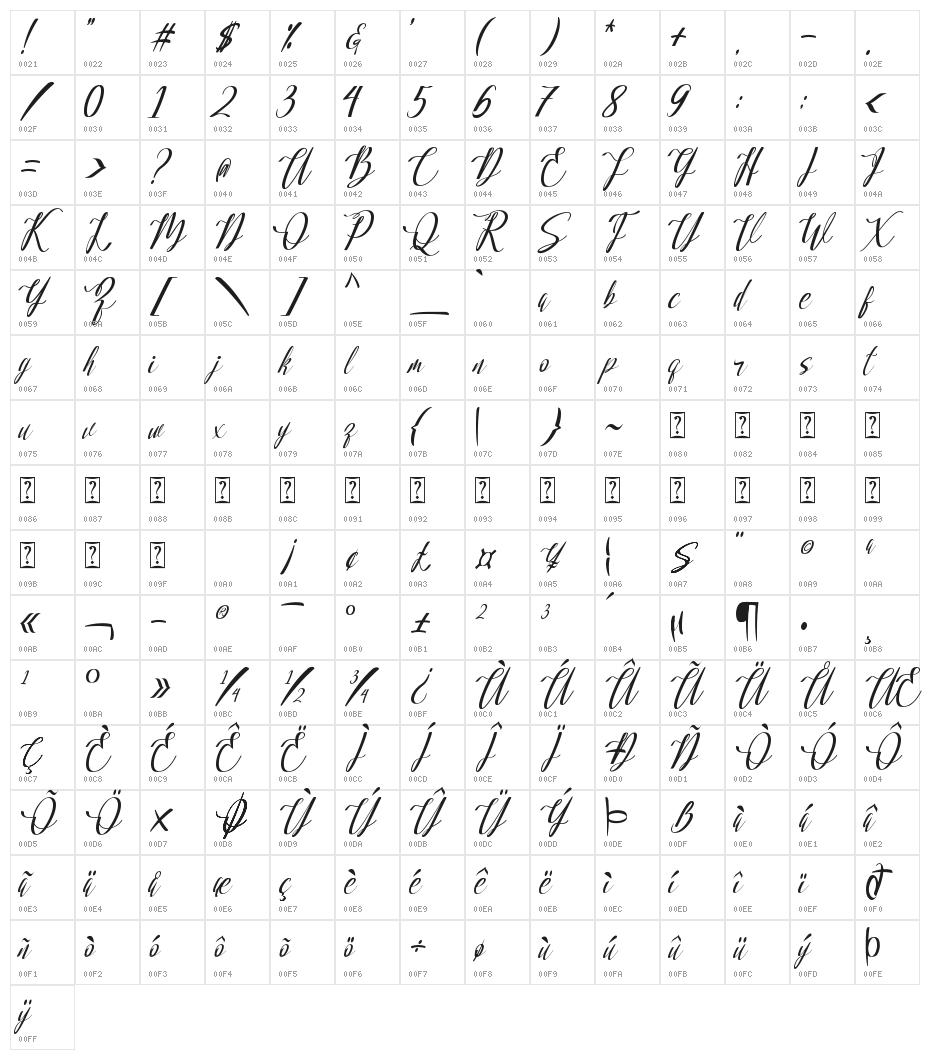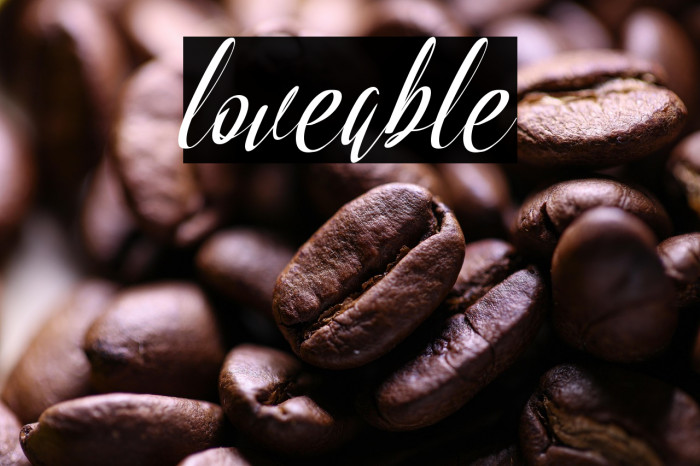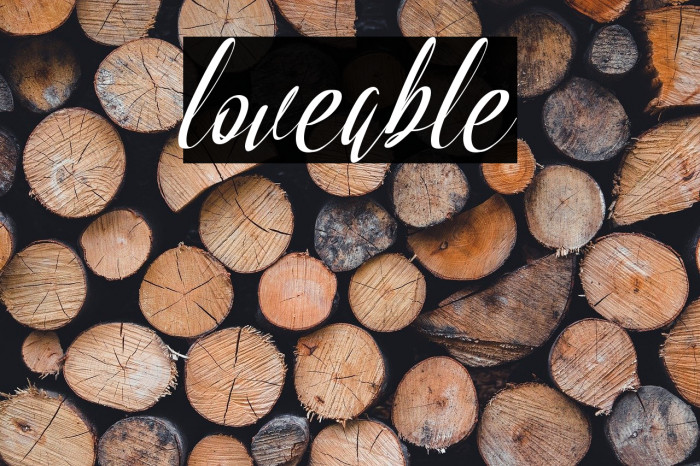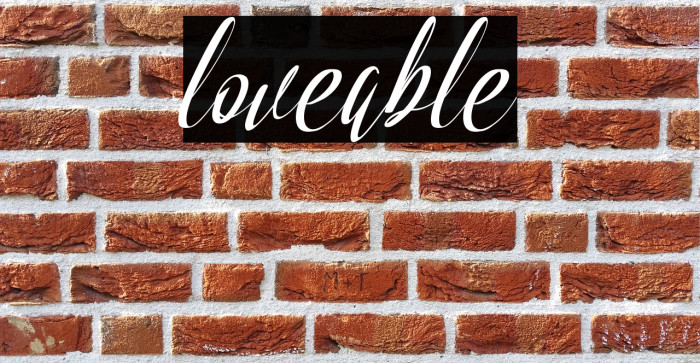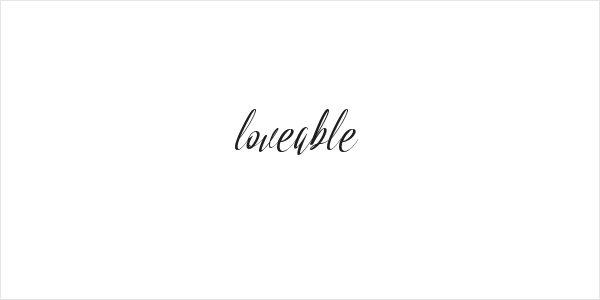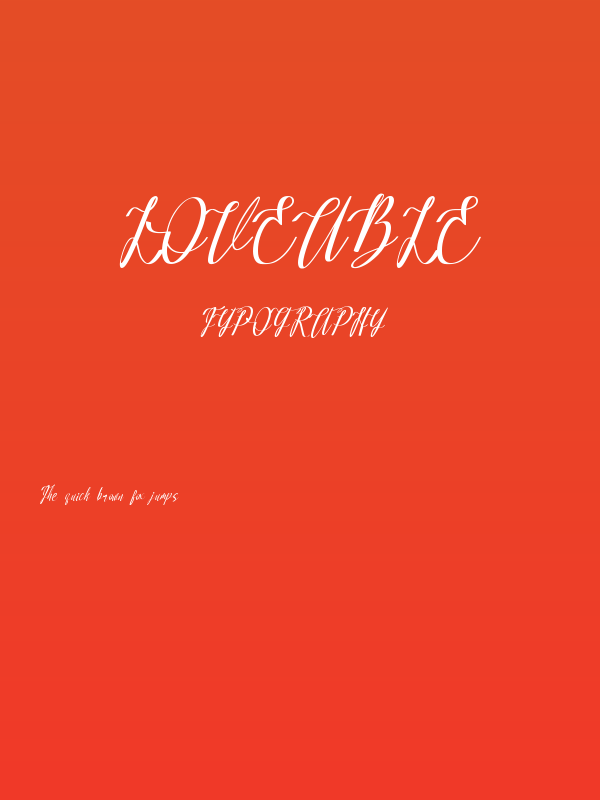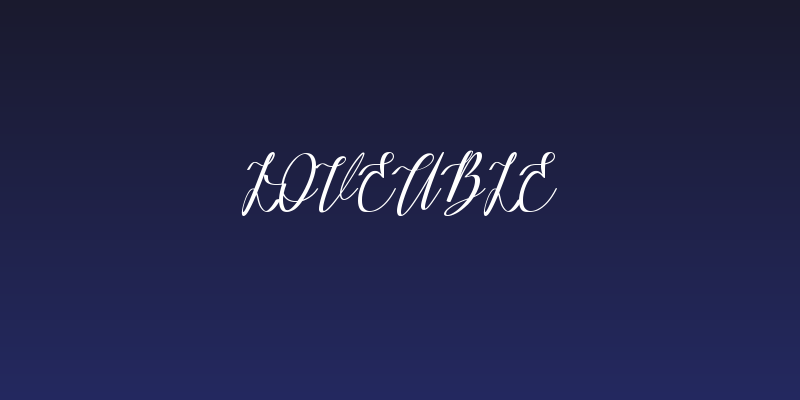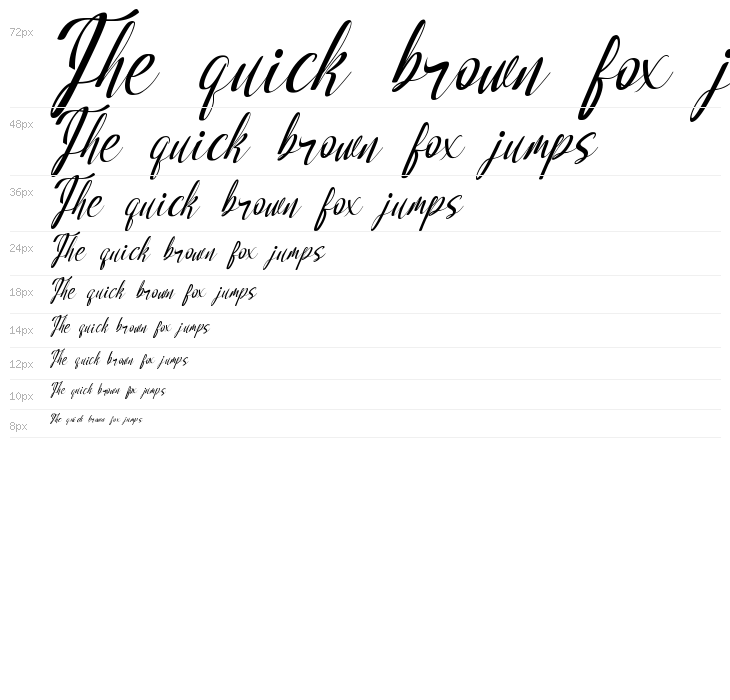
loveable Font
loveable Description
This elegant script font features a flowing, cursive style that exudes sophistication and grace. The characters are connected seamlessly, creating a fluid and dynamic appearance. Each letter is crafted with a slight slant, enhancing its handwritten feel. The strokes vary in thickness, providing a medium contrast that adds depth and interest to the text. The font is well-suited for projects that require a touch of elegance and personal flair, such as invitations, greeting cards, and branding materials. Its artistic nature makes it ideal for creative and decorative applications.
| Overall Style | Elegant, Decorative |
| Use Case | Headlines, Invitations, Branding |
| Proposed Projects | Perfect for wedding invitations, greeting cards, branding, and decorative designs. |